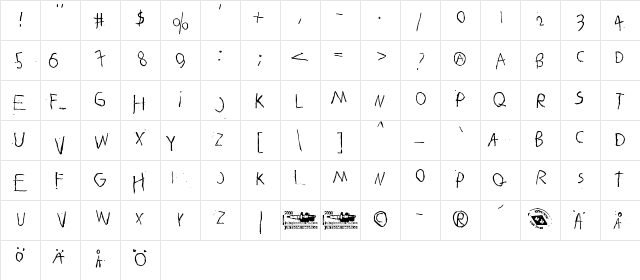
Betelgeuse Regular
Design Context for Betelgeuse Typeface
Betelgeuse is a composed and adaptable typeface that performs quietly and consistently across a wide range of design contexts.